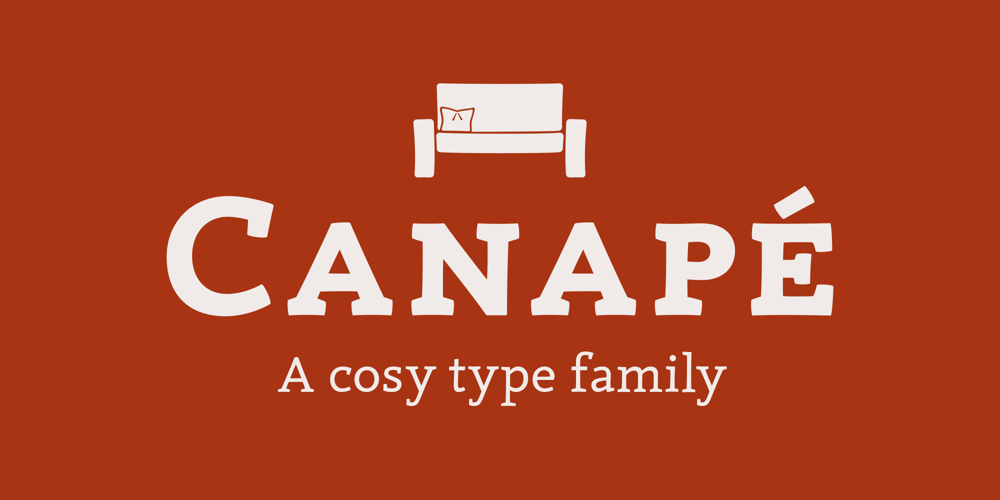
Canapé
Canapé font
Canapé Font Family was designed by Sebastian Nagel and published by FDI. Canapé contains 4 styles and family package options. Canapé is based on the idea of letters with a subtly curved and slightly modulated line. Through this, the typeface has a warm and friendly, almost haptical appearance which brings some kind of cosiness to your communication with type. Designed and crafted with great attention to detail, the type family is usable for copy texts as well as corporate design or display purposes. Canapé (Serif) with its 4 fonts and more than 4,200 characters contains a large amount of features like small capitals, swashes, 10 different figure sets, automated fractions, ordinals, standard and discretionary ligatures, language support for Central and Western Europe and a small sofa building kit. All features are conveniently accessible through OpenType features. Check out the type specimen PDF for more details and a closer look.